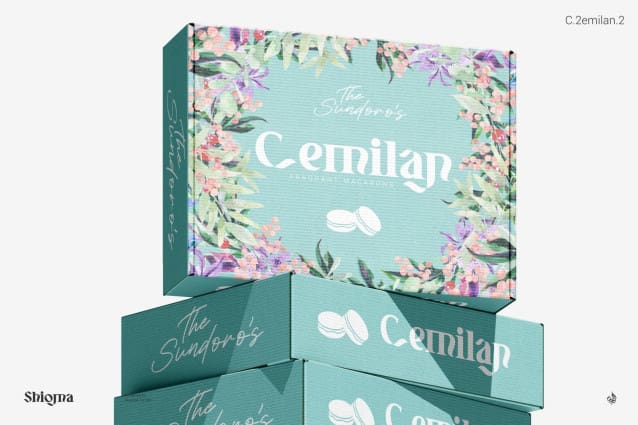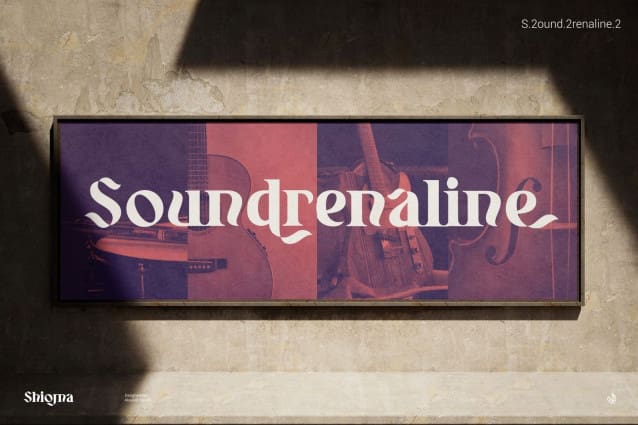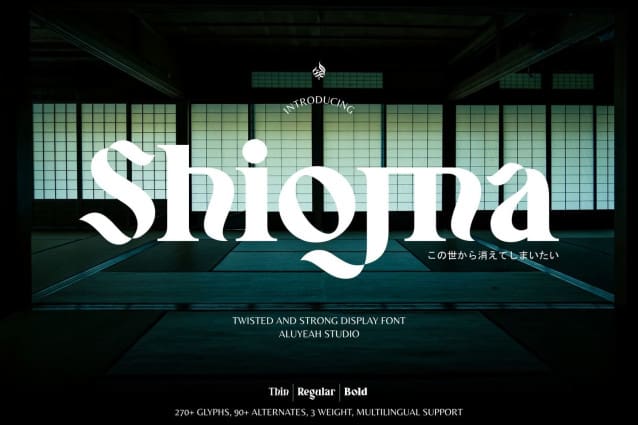
Shioma Font
Shioma Font – a Twisted and Strong Display Font! Elevate your design projects with Shioma, a standout typeface featuring a twisted and strong display font that is sure to capture attention. With its design inspired by ink strokes that form a twisted shape, Shioma Font offers a wide range of 270+ glyphs and 90+ alternates and ligatures for added creativity. The quick access feature makes it easy to use, and the 3 weights available offers versatility and flexibility for all your design needs.